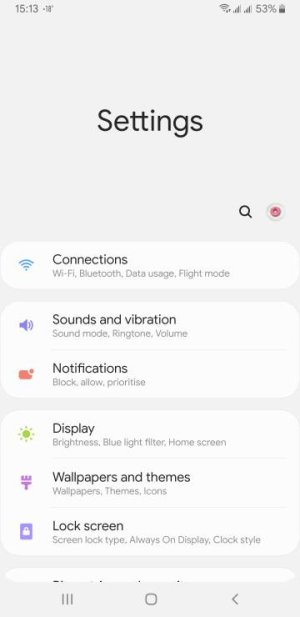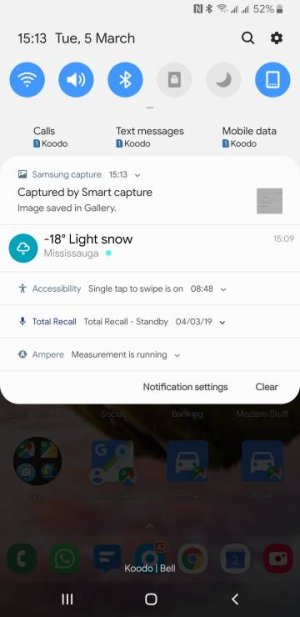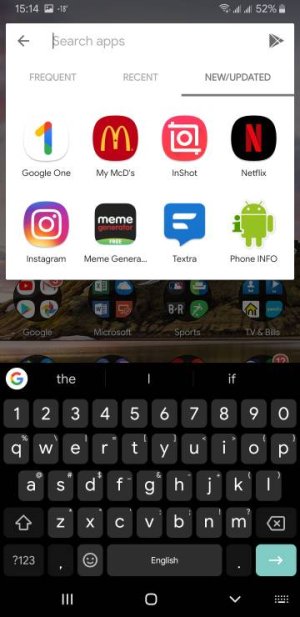
Thanks to system-wide custom fonts, my S9+ is more "Google" than a Pixel 😂
As I discovered when I visited a Bell Mobility store recently, the default UI font on Pixel phones is not Google/Product Sans. Such a pity since it does look so good when applied system-wide.
Another screenshot
And a third:
Sorry, but I don't completely understand what you're showing in these screenshots. Is there an app called system wide custom fonts? Is the font style Koodo?
I'm just showcasing what the phone's interface looks like with the font set to "Google Sans" (which is Google's current main branding font, if you will.)
I see. Yeah, I have Google's product sans set as my system font, and I really like it. There's one app in play store (A Fonts) which works well and doesn't require root.
Wait...
That's the Google font everyone is all excited about?
I don't know. That's just Avant Garde. And I used that so much back in the mid to late 90s for presentation and title block lettering that I'm kind of sick of it now.
Not quite.
See these pics. Email window is Google Sans. The other one is Avant Garde.
I know it's not an exact match, but still too close to me.